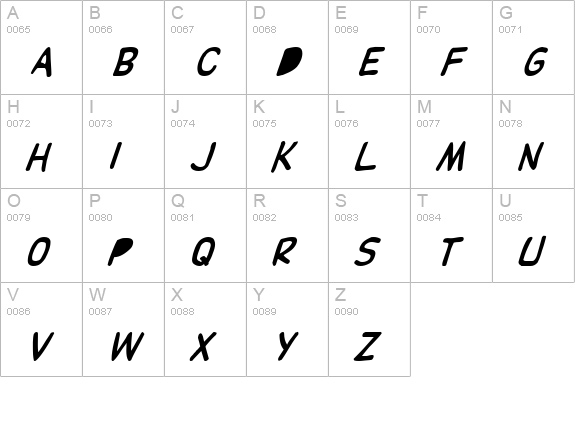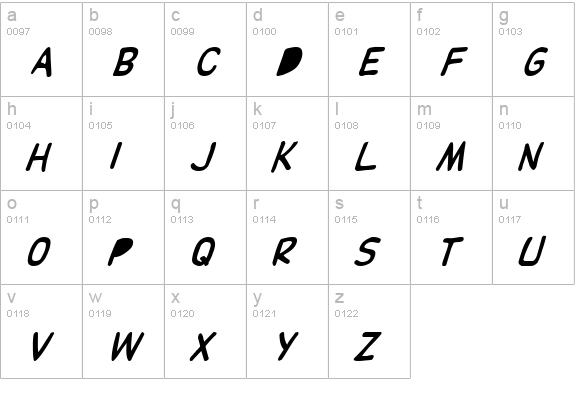
DupuyBALloon Italic Font Details
DupuyBALloon Italic is a distinctive, italic variant in the DupuyBALloon typeface family \xE2\x80\x94 well suited to design and typography projects.
DupuyBALloon Italic font is a whimsical and playful typeface that exudes a sense of fun and creativity. Its unique design features round, balloon-like shapes that give it a lighthearted and cheerful feel. The italic style adds a touch of elegance and sophistication to any project, making it perfect for invitations, greeting cards, posters, and more. What's even better is that DupuyBALloon Italic font is available for free download at FontsMarket.com. This means you can easily access this delightful font and incorporate it into your designs without any cost. Whether you're working on a personal project or a professional one, DupuyBALloon Italic font is sure to bring a touch of charm and character to your work. Download it today and let your creativity soar!